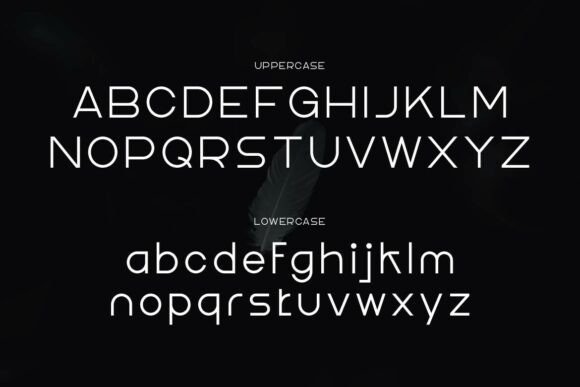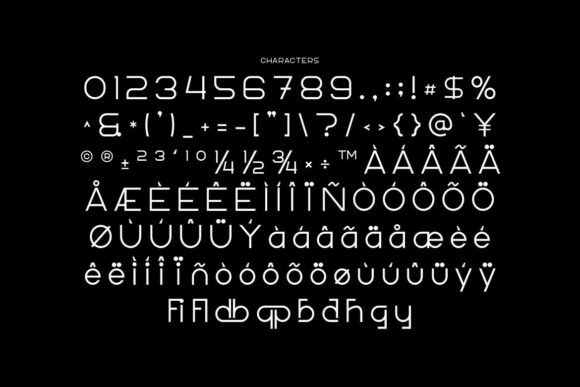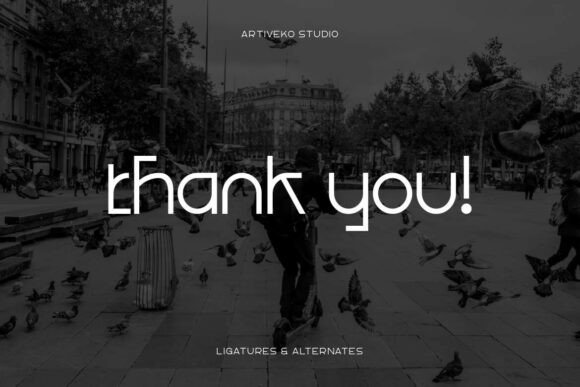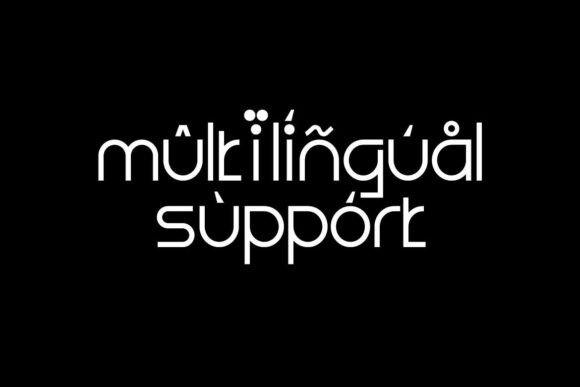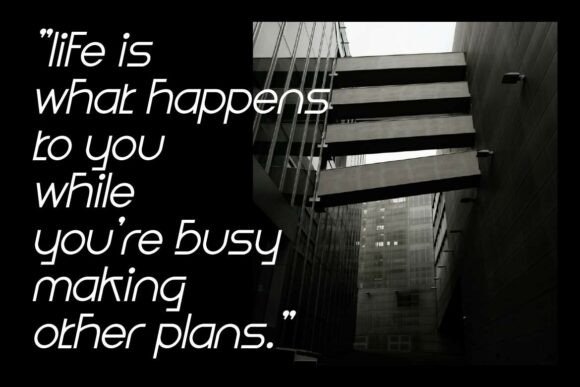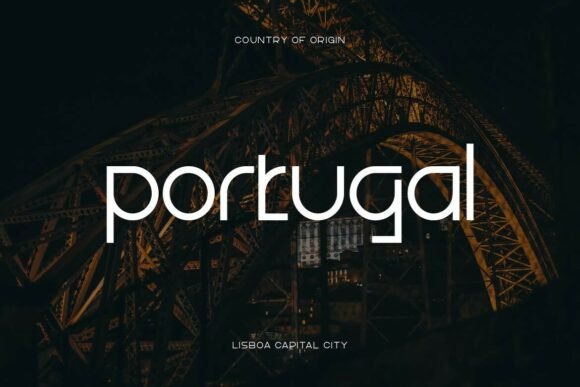
Discover the Elegance of Grople Font: A Modern Sans Serif for Design Enthusiasts
In the realm of typography, the right font can elevate a design from ordinary to extraordinary. For those who appreciate the beauty of minimalism and modern simplicity, Grople Font is a game-changer. This sleek and contemporary sans serif font is designed to meet the needs of designers, crafters, and branding experts who seek a clean, balanced, and refined aesthetic.
The Essence of Grople Font
Grople Font embodies the essence of minimalism, characterized by clean lines, balanced shapes, and meticulous spacing. This harmonious blend of elements results in a font that exudes a sense of modern simplicity, making it perfect for a wide range of applications, from branding and logo design to packaging, magazines, and digital interfaces.
Key Features of Grople Font
- Clean Lines: Grople’s lines are devoid of unnecessary embellishments, providing a crisp and clear visual appearance that ensures legibility across various mediums.
- Balanced Shapes: The font’s shapes are meticulously crafted to achieve a perfect balance, contributing to its overall aesthetic appeal and readability.
- Refined Spacing: The spacing between letters and lines is carefully adjusted to create a harmonious flow, enhancing the reading experience and visual impact.
Applications of Grople Font
Grople Font’s versatility makes it an excellent choice for various design projects. Here are some of the areas where Grople truly shines:
- Branding: Establish a strong brand identity with Grople’s modern and sleek appearance, perfect for companies looking to convey a sense of sophistication and elegance.
- Logo Design: Create memorable logos that stand out with Grople’s unique and clean aesthetic, ideal for businesses aiming to make a lasting impression.
- Packaging: Elevate product packaging with Grople’s refined and contemporary look, ensuring that your products stand out on store shelves.
- Magazines: Enhance the reading experience with Grople’s clear and balanced typography, perfect for publications seeking a modern and sophisticated feel.
- Digital Interfaces: Improve user experience with Grople’s clean and legible design, suitable for websites, apps, and other digital platforms.
Why Choose Grople Font?
In a world where design trends are constantly evolving, Grople Font offers a timeless solution for those seeking a modern and minimalist aesthetic. Its versatility, legibility, and aesthetic appeal make it an excellent addition to any designer’s toolkit.
Whether you’re a seasoned designer or a crafty DIY enthusiast, Grople Font provides the perfect blend of style and functionality. Its ability to adapt to various design contexts, from print to digital, makes it a valuable asset for anyone looking to create visually stunning and effective designs.
Grople Font is more than just a typeface; it’s a design statement that speaks to those who value modern simplicity and elegance. With its clean lines, balanced shapes, and refined spacing, Grople offers a fresh perspective on sans serif typography. Whether you’re working on a branding project, designing a logo, or crafting a digital interface, Grople Font is an excellent choice for anyone seeking to make a lasting impression.
Embrace the simplicity and sophistication of Grople Font, and discover a world of design possibilities that are both visually stunning and highly effective.